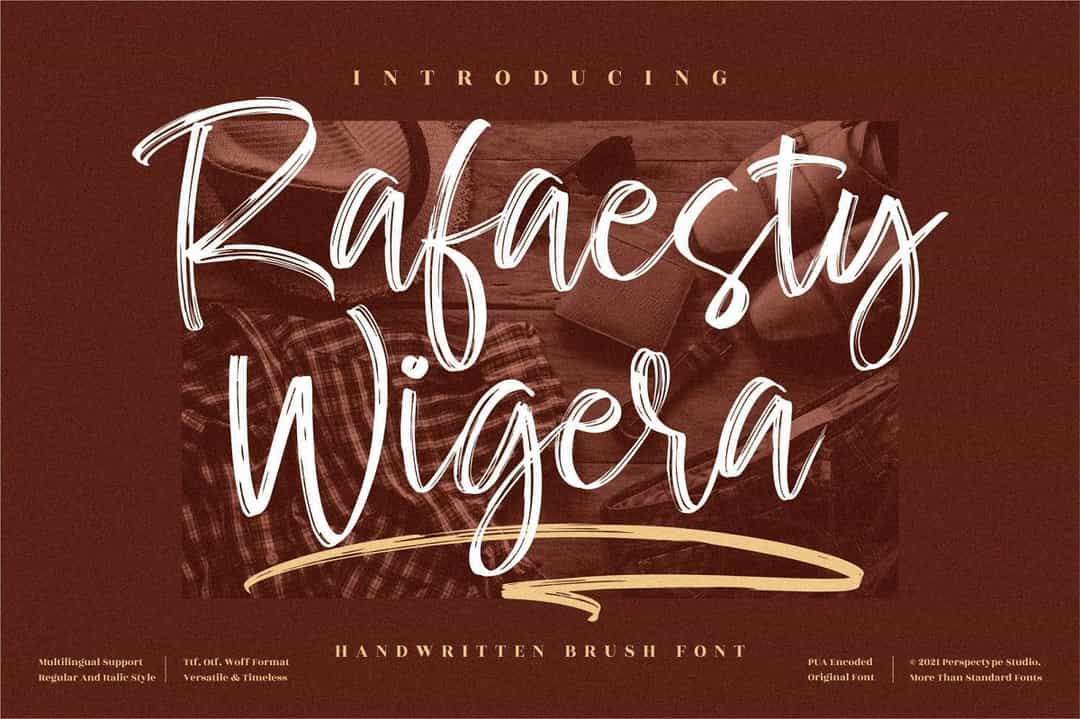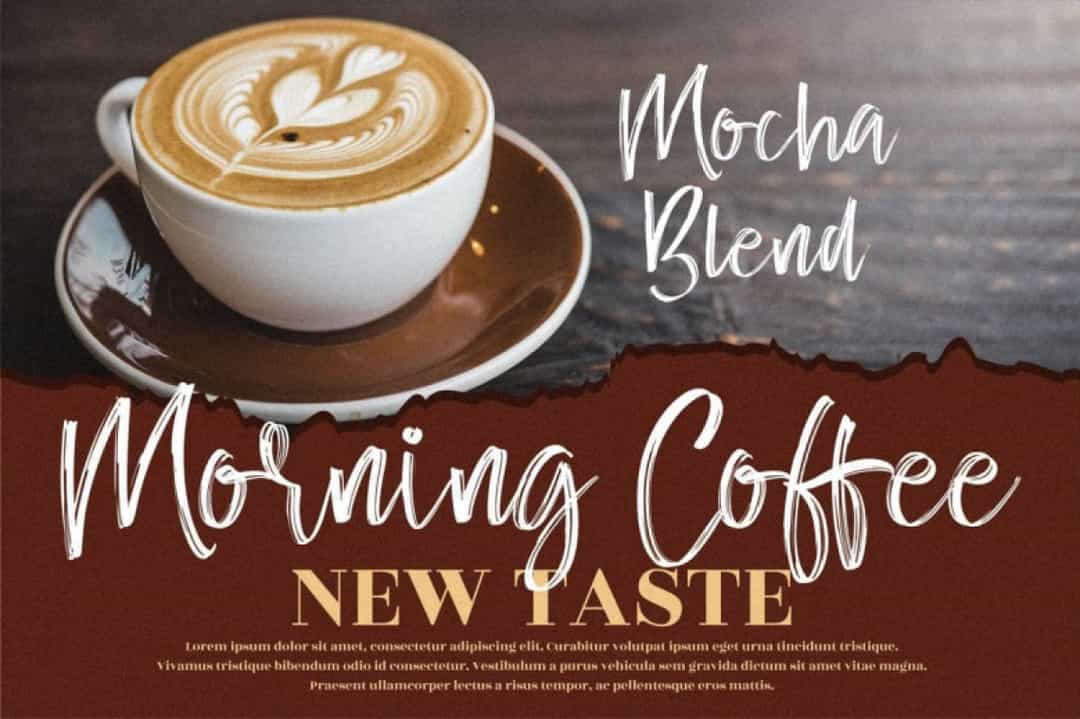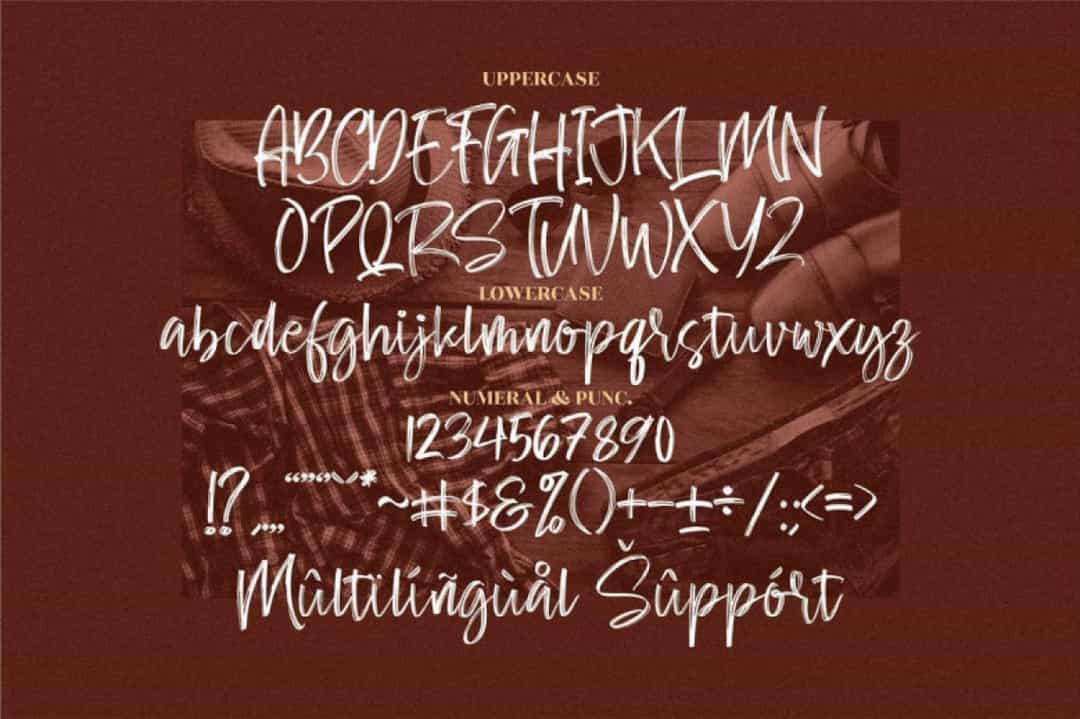
Rafaesty Wigera is an exquisite brush script font. Featuring relaxed yet asymmetrical characters, it will complement many designs requiring personal flair.